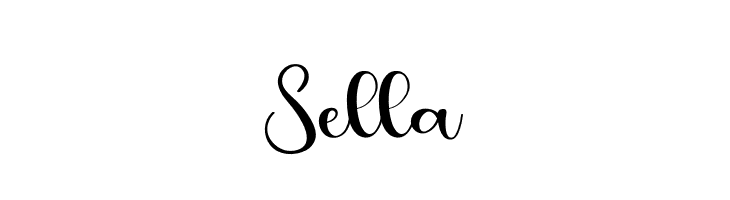
A bold, high-contrast font with a modern geometric style.
An ornate, decorative font with intricate floral and spiral embellishments.
An ornate decorative font with intricate floral and circular patterns.
A modern script font with elegant, flowing cursive lines.
A playful, bold, and rounded hand-drawn font with a casual vibe.
A bold, decorative font with characters encased in thorny wreaths.
A playful, bubbly font with rounded, thick strokes and a whimsical style.
A playful, handwritten font with a whimsical and friendly style.
A bold, expressive brush script font with dynamic strokes and a handwritten feel.
A playful, hand-drawn font with rounded edges and a casual style.
A playful, handwritten script font with bold, dynamic strokes.
A playful, bold script font with interconnected, flowing curves.
An elegant script font with flowing, cursive strokes and graceful curves.
A graceful and flowing script font with elegant, connected characters.
A bold, playful handwritten font with thick strokes and rounded edges.
A playful, handwritten font with rounded edges and a casual style.
A playful, handwritten font with an elegant and whimsical style.
A bold, expressive handwritten font with dynamic curves and lively strokes.
A playful, heart-themed decorative font with a cursive, handwritten style.
A whimsical, heart-themed font with cursive lowercase letters.
A playful, hand-drawn font with tall, narrow characters and a whimsical style.
An elegant script font with flowing, cursive style and intricate loops.
A playful, handwritten font with smooth, flowing lines and a casual vibe.
A playful, handwritten font with smooth, rounded edges and a friendly appearance.
A playful, curly font with a spring-like design, perfect for creative projects.
A playful, hand-drawn font with rounded edges and a whimsical style.
A playful handwritten font with smooth curves and a casual style.
A playful handwritten font with smooth, rounded strokes and a casual style.
A playful, bold handwritten font with rounded edges and a whimsical style.
A bold, edgy font with sharp angles and a rebellious style.
A lively, cursive script font with fluid, connected letters and playful contrast.
A dynamic, hand-drawn style font with elongated strokes and playful flair.
A playful, handwritten font with smooth, rounded edges and a casual style.